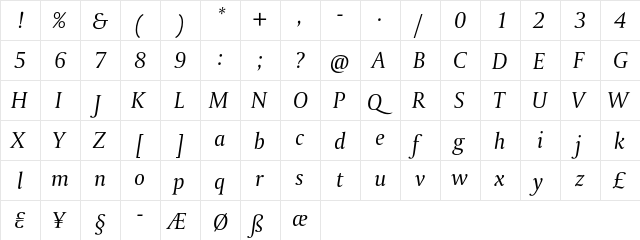
Capitolium RegularItalic
Design Context for Capitolium Typeface
Capitolium is a composed and adaptable typeface that performs quietly and consistently across a wide range of design contexts. The dynamic lean of this cut emphasises speed and emphasis in any layout.
Pro Tip: Try Capitolium for annotation and caption copy alongside an upright companion — the contrast in angle creates a dynamic but ordered typographic system.